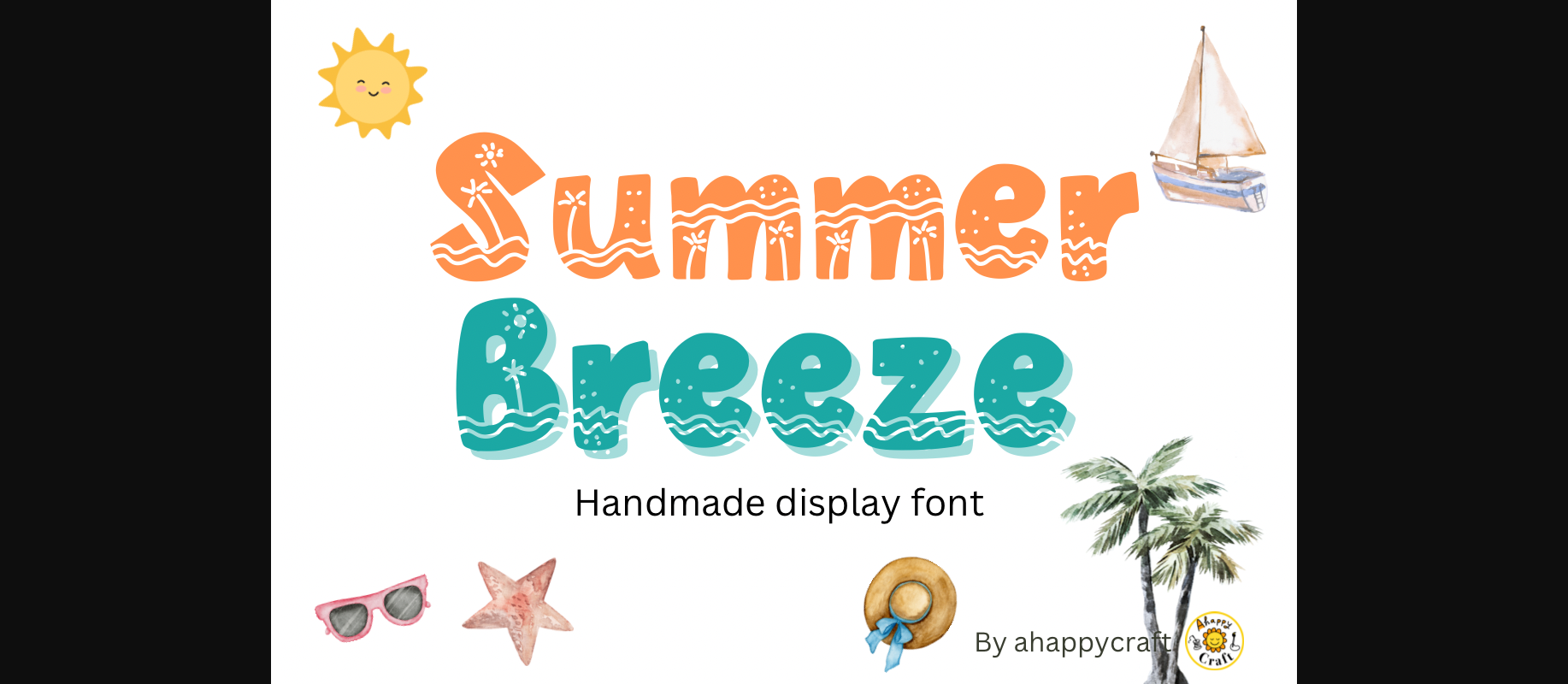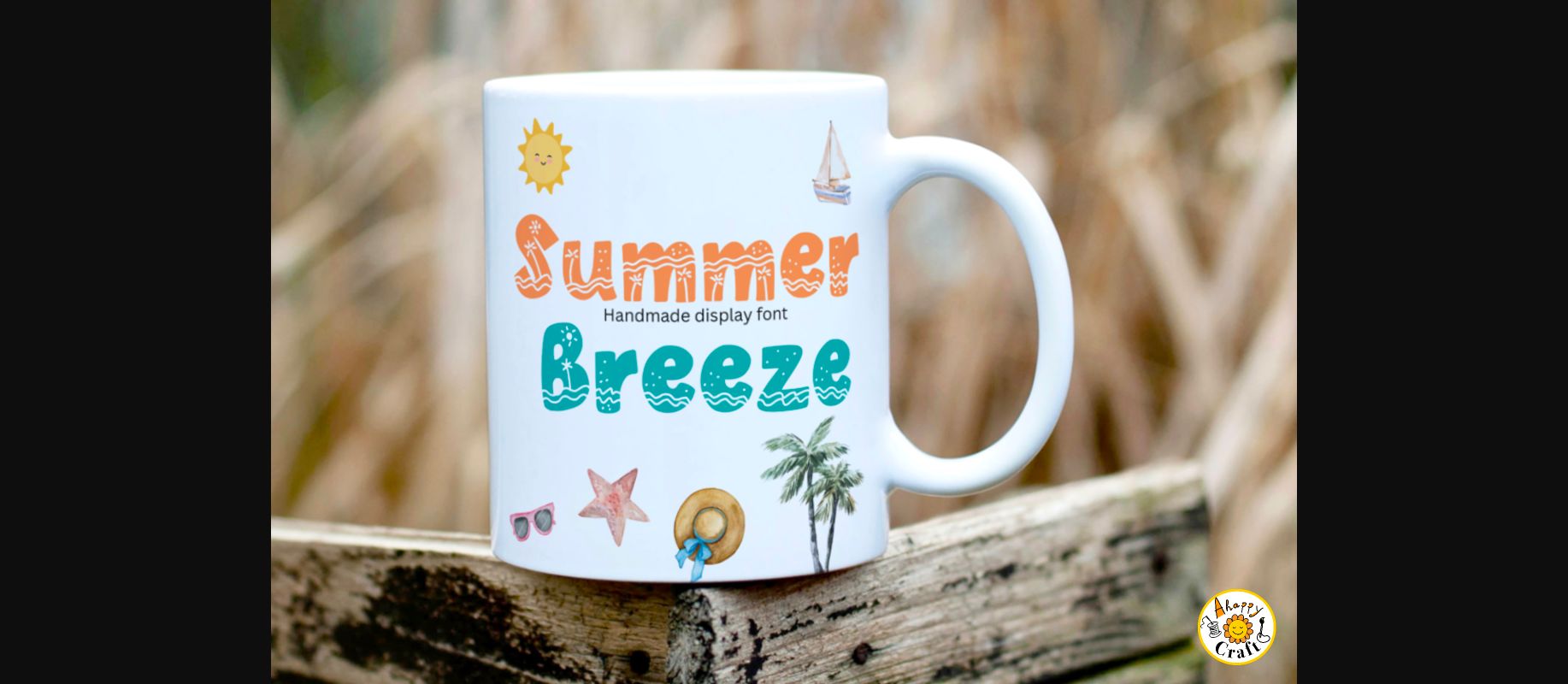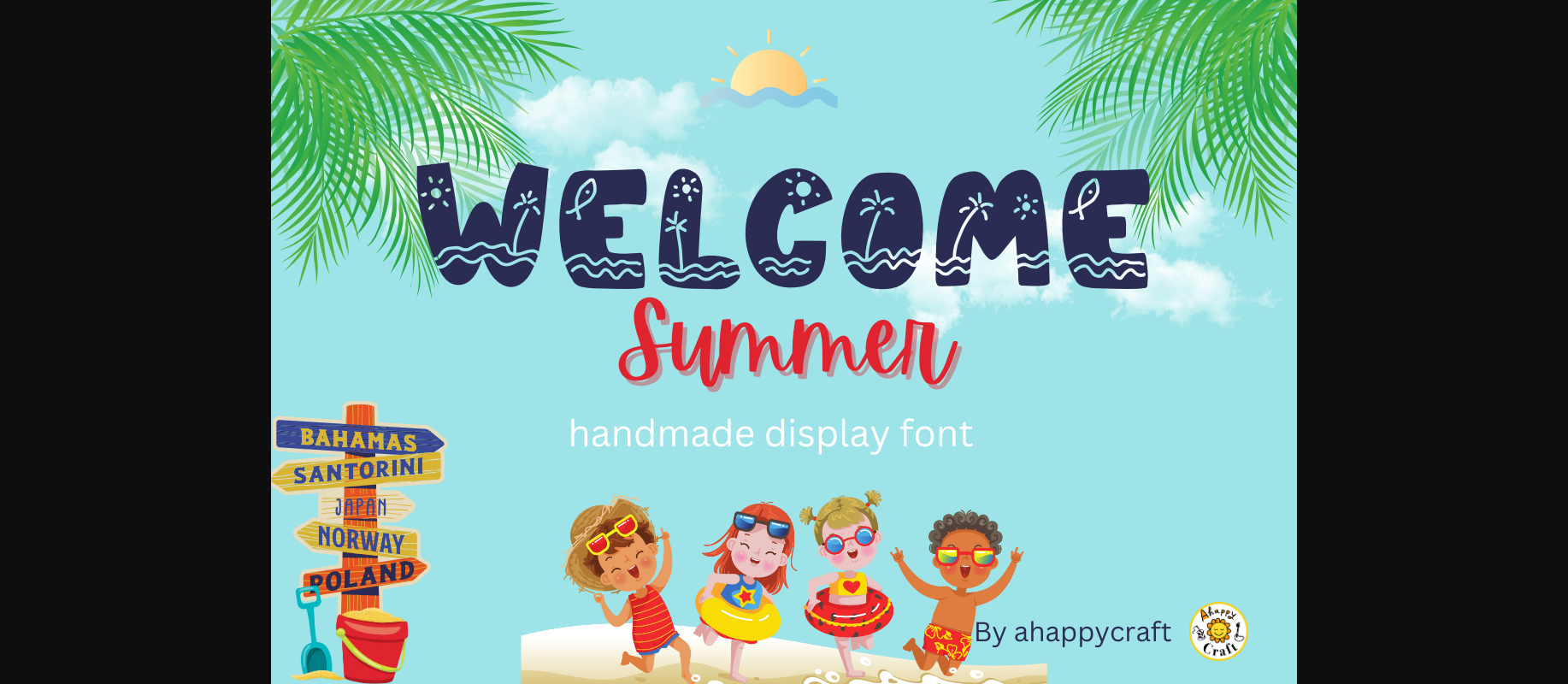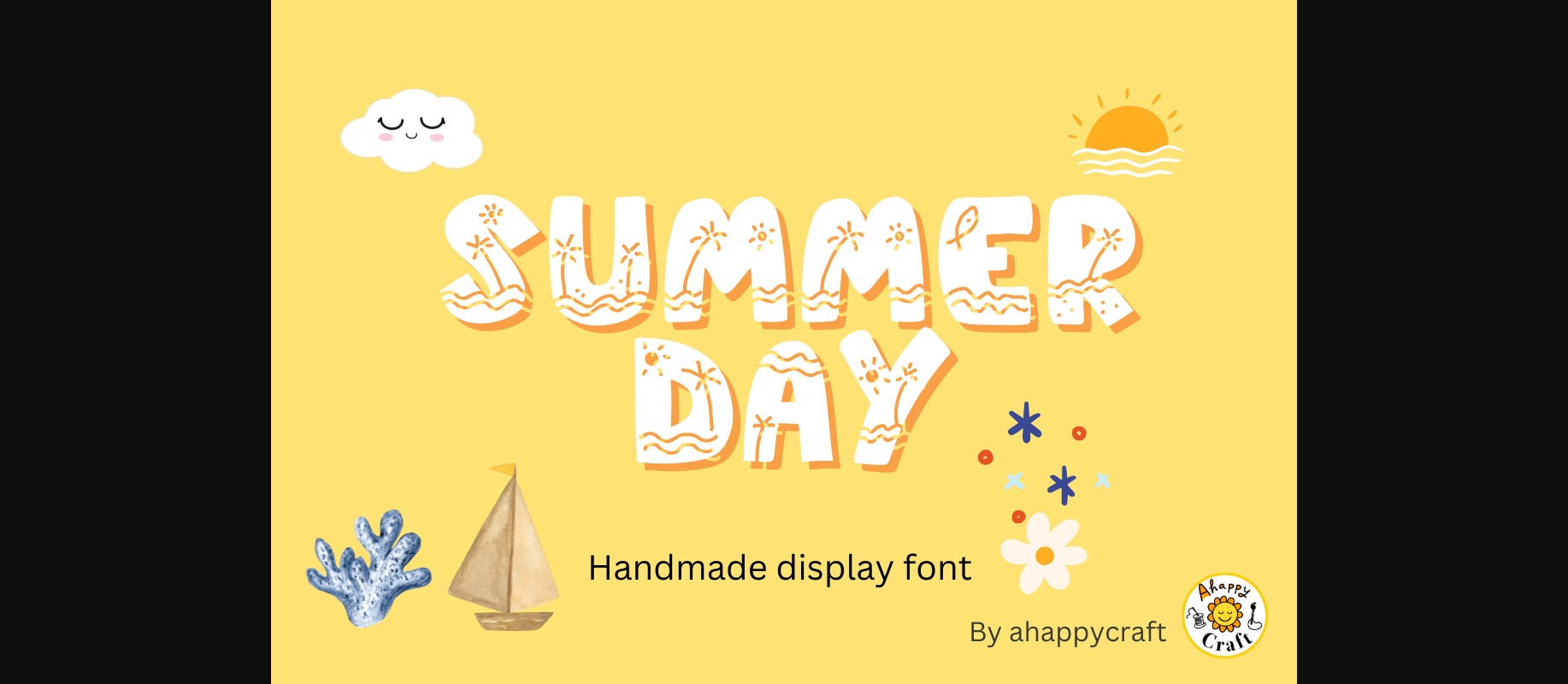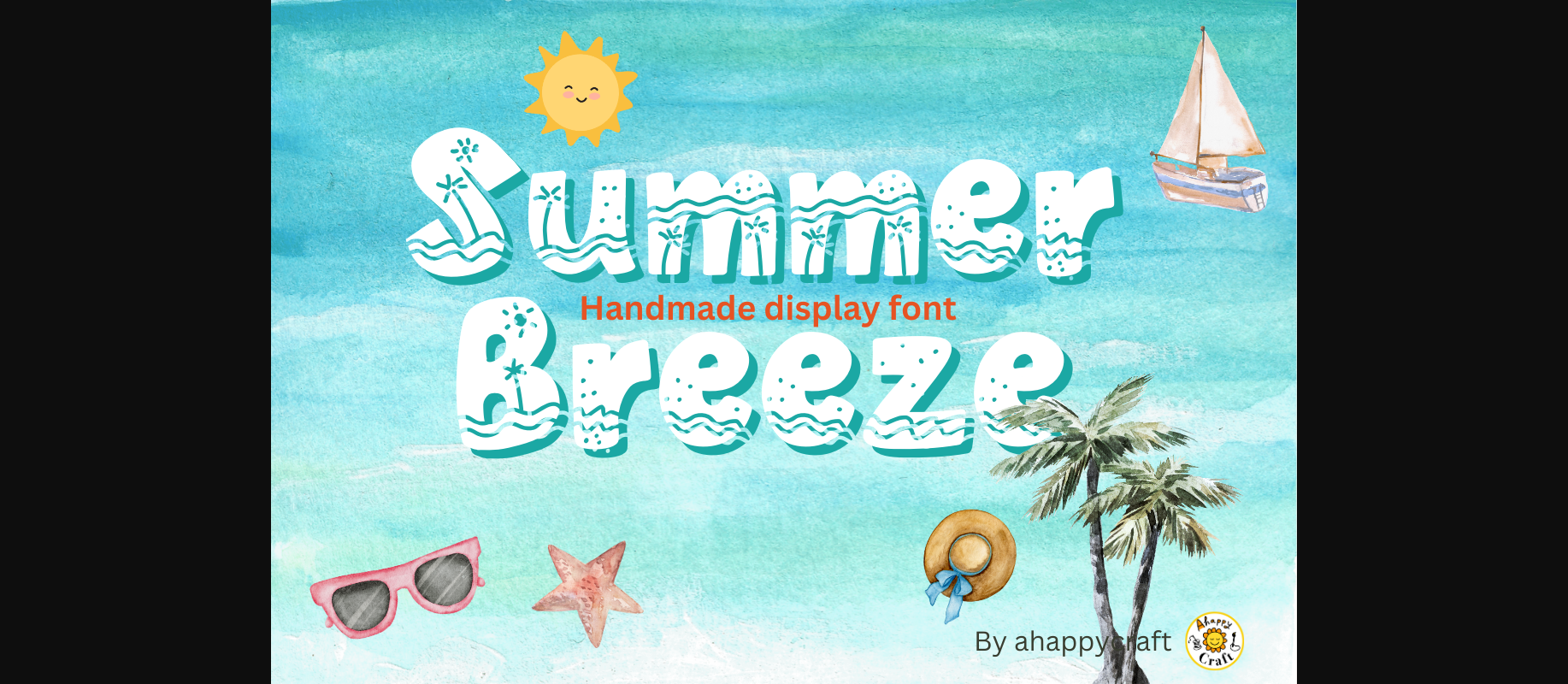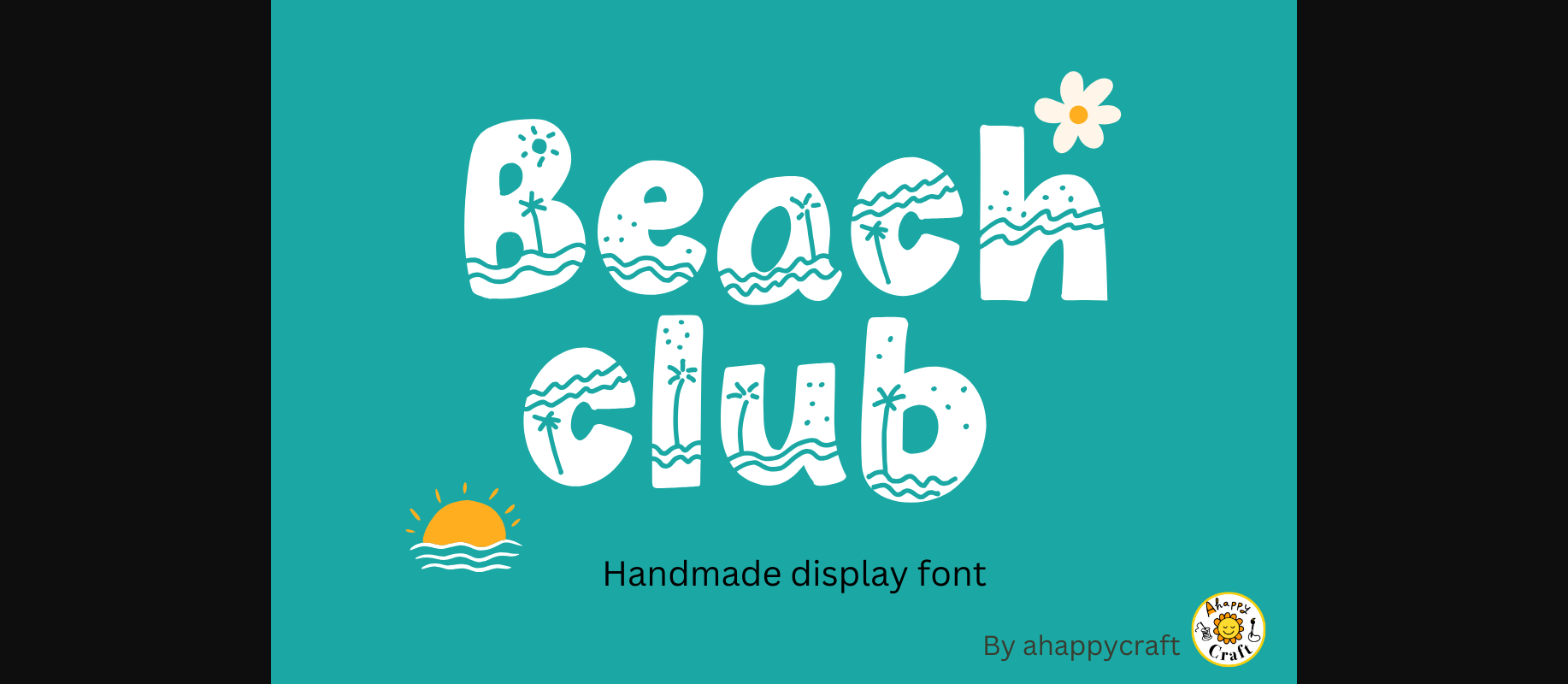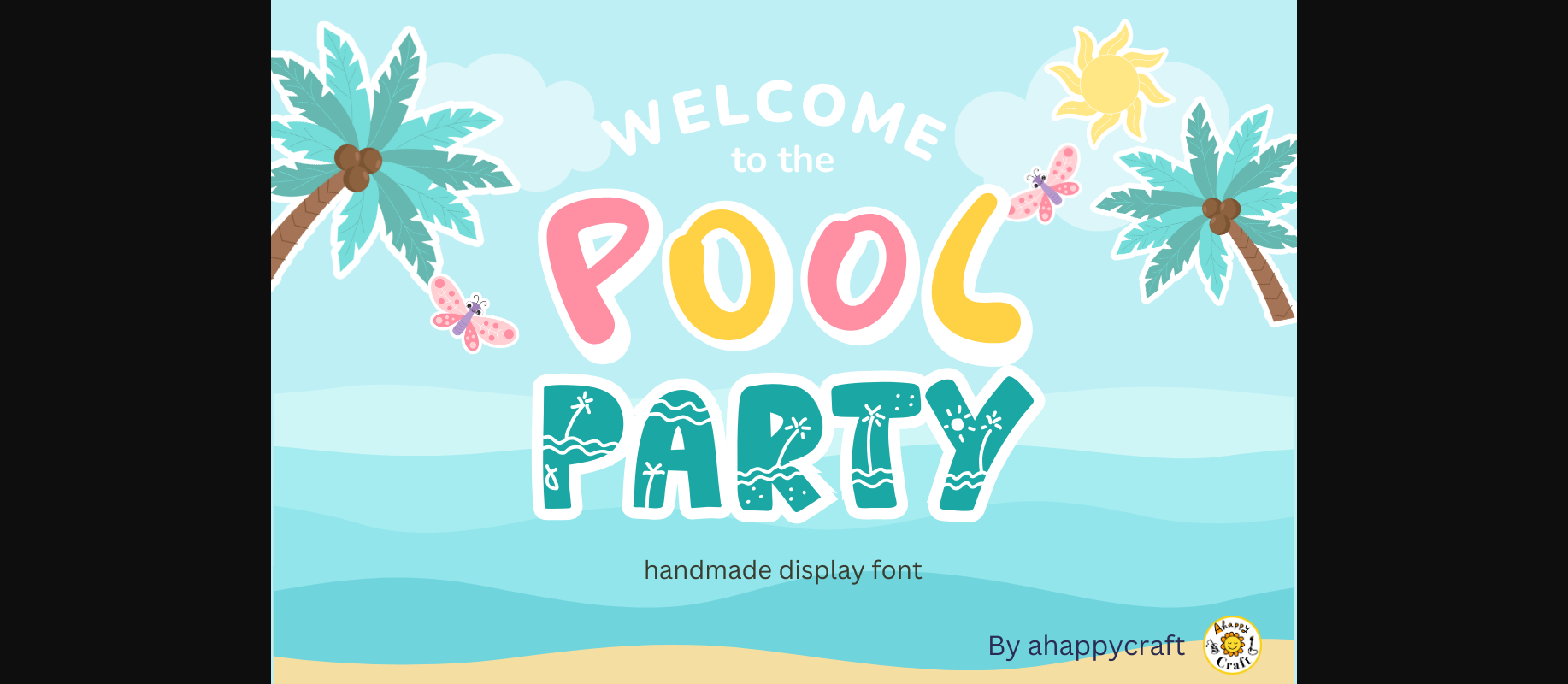
HomeDecorative FontsSummer Breeze Font Decorative Fonts Summer Breeze Font FacebookXPinterestWhatsApp 1 of 11 ... Summer Breeze Font Poster 2... Summer Breeze Font Poster 3... Summer Breeze Font Poster 4... Summer Breeze Font Poster 5... Summer Breeze Font Poster 6... Summer Breeze Font Poster 7... Summer Breeze Font Poster 8... Summer Breeze Font Poster 9... Summer Breeze Font Poster 10... Summer Breeze Font Poster 11... About Summer Breeze Font Summer Breeze is a fun and relaxed decorative font. Add it to your summer-themed projects, pool party posters, and vacation stickers and you will love the results! DOWNLOAD NOW People also explored Belvina Font Sunshine Valentine Wallice Font Dreamy Font Smithson Font Crumpled Paper Vertical Sketch Happy Autumn Font Milibus Cocktail Script 330 0 TagsSummer Breeze Font Previous articleDance Varsity FontNext articleSpring Font LEAVE A REPLY Cancel reply Comment: Please enter your comment! Name:* Please enter your name here Email:* You have entered an incorrect email address! Please enter your email address here Website: Save my name, email, and website in this browser for the next time I comment. Personal Use Free Over the Top Personal Use Free Read more about this font Fadhista Personal Use Free Read more about this font Sheiloria Personal Use Free Read more about this font Zelega Zenega Personal Use Free Read more about this font BLOG How to Install and Use Fonts on Windows, macOS, and Web Projects How to Install and Use Fonts on Windows, macOS, and Web Projects Fonts are a crucial part of design and branding. Whether you’re designing a... Free vs Paid Fonts: Why Investing in Premium Fonts Is Worth It Fonts That Capture the Spirit of New York City Top 7 Google Fonts Alternatives for Faster and Privacy-Friendly Web Design (2025)